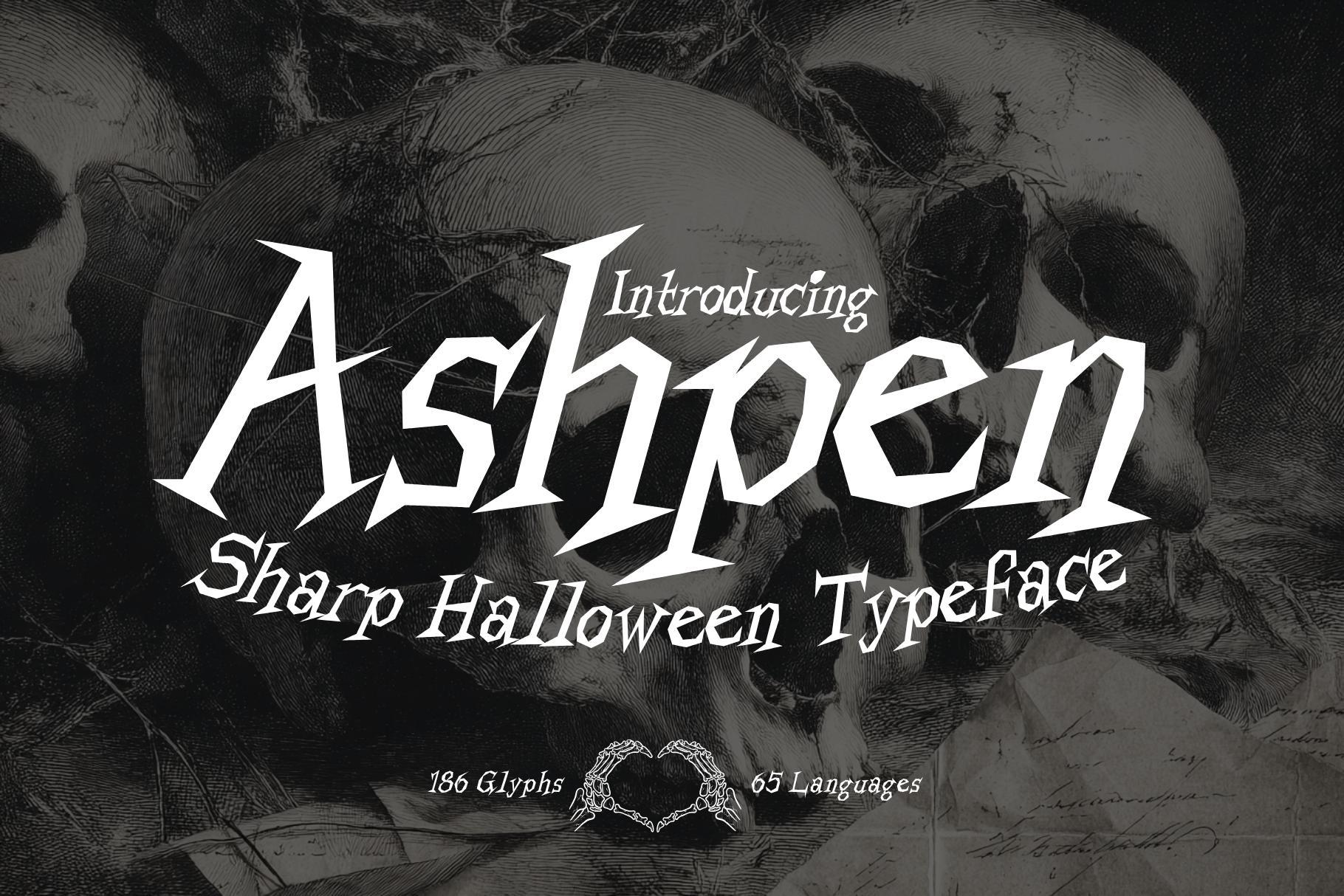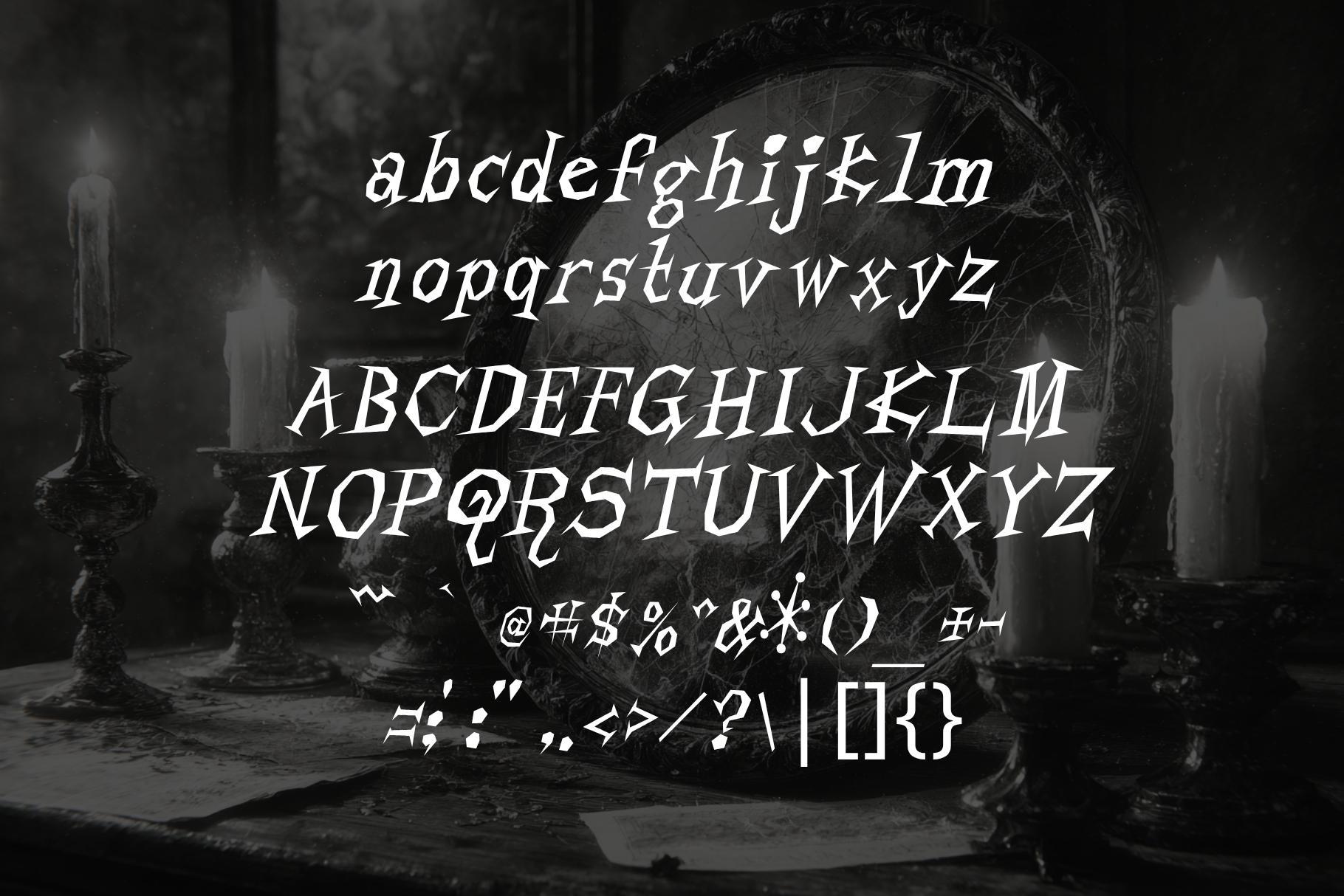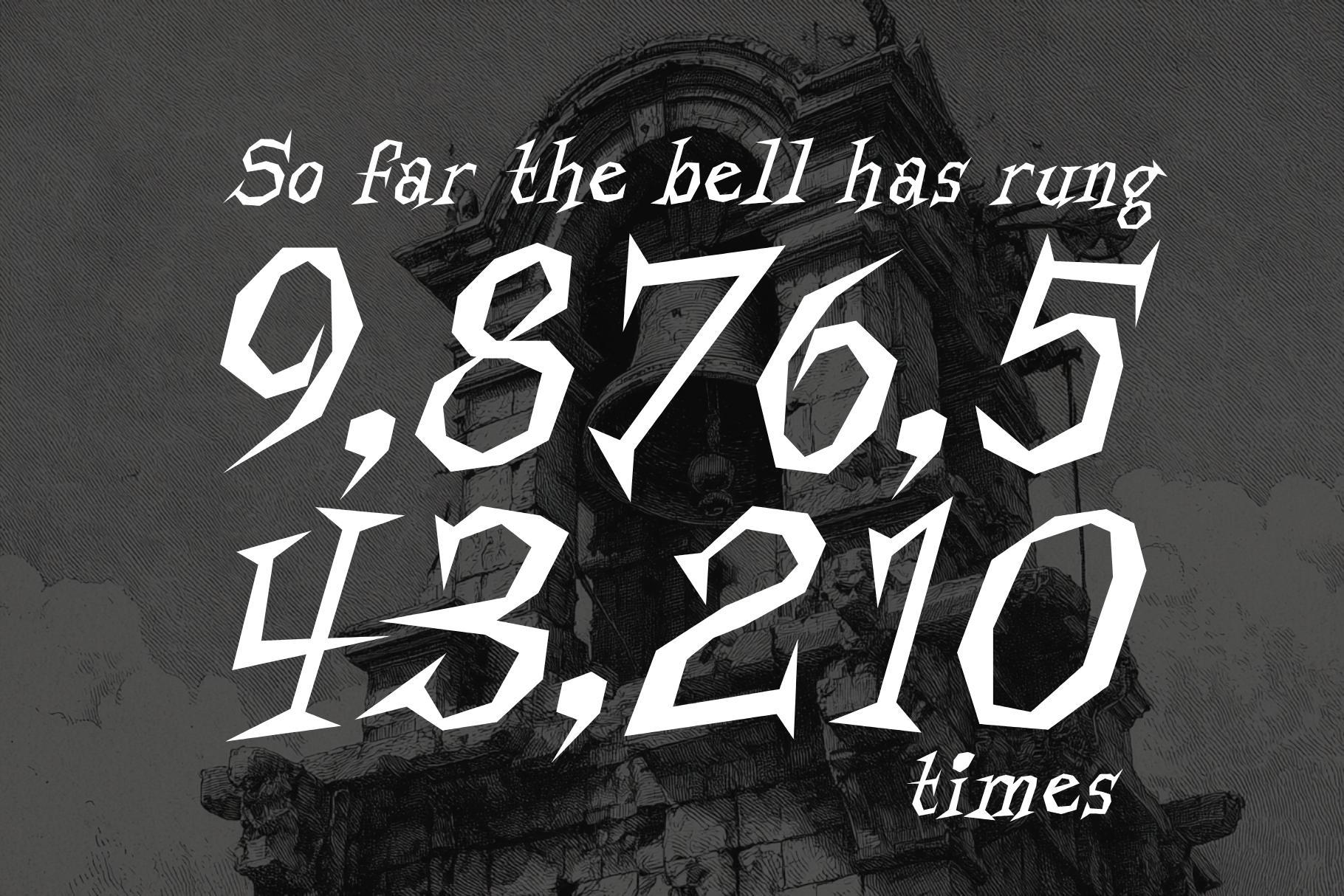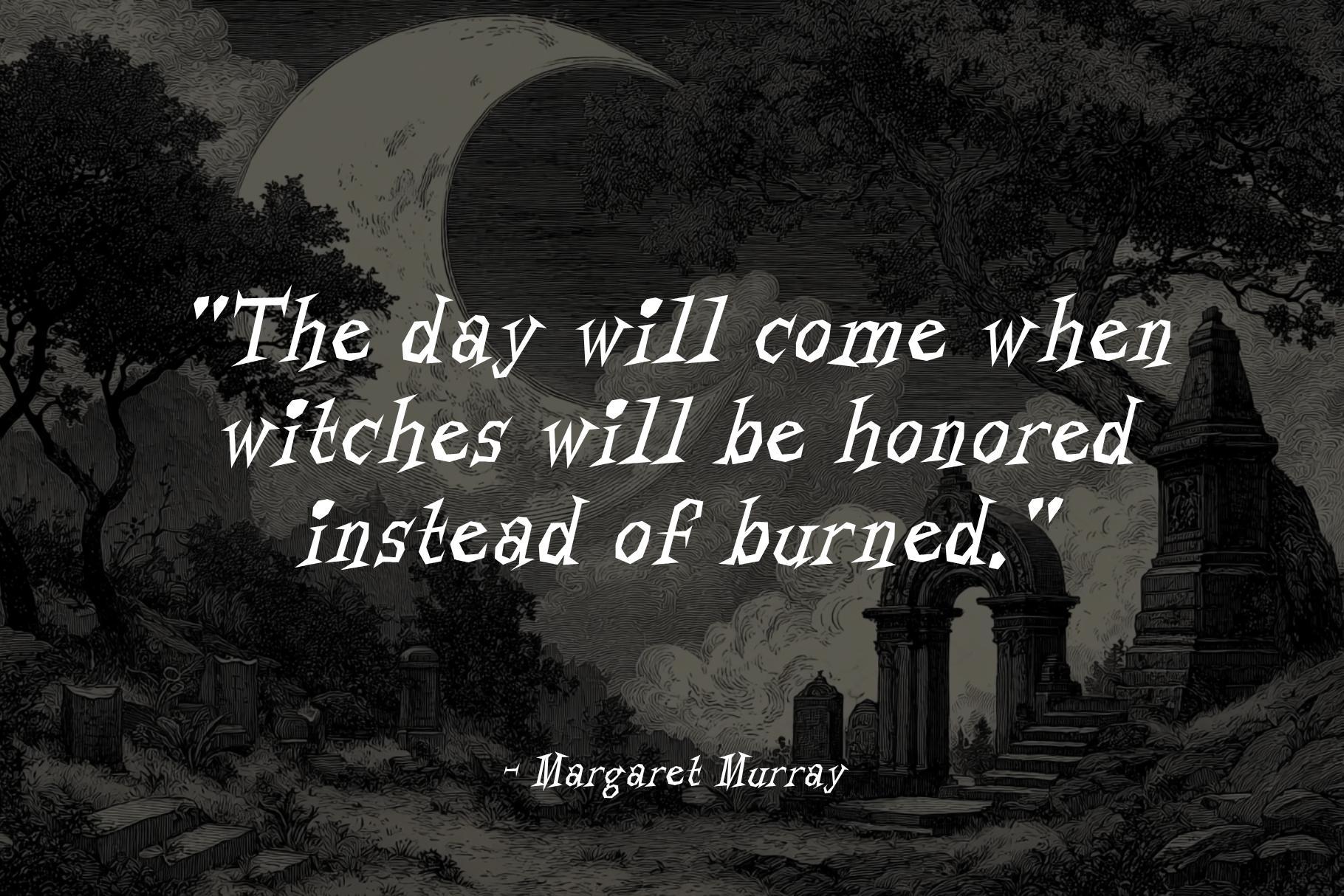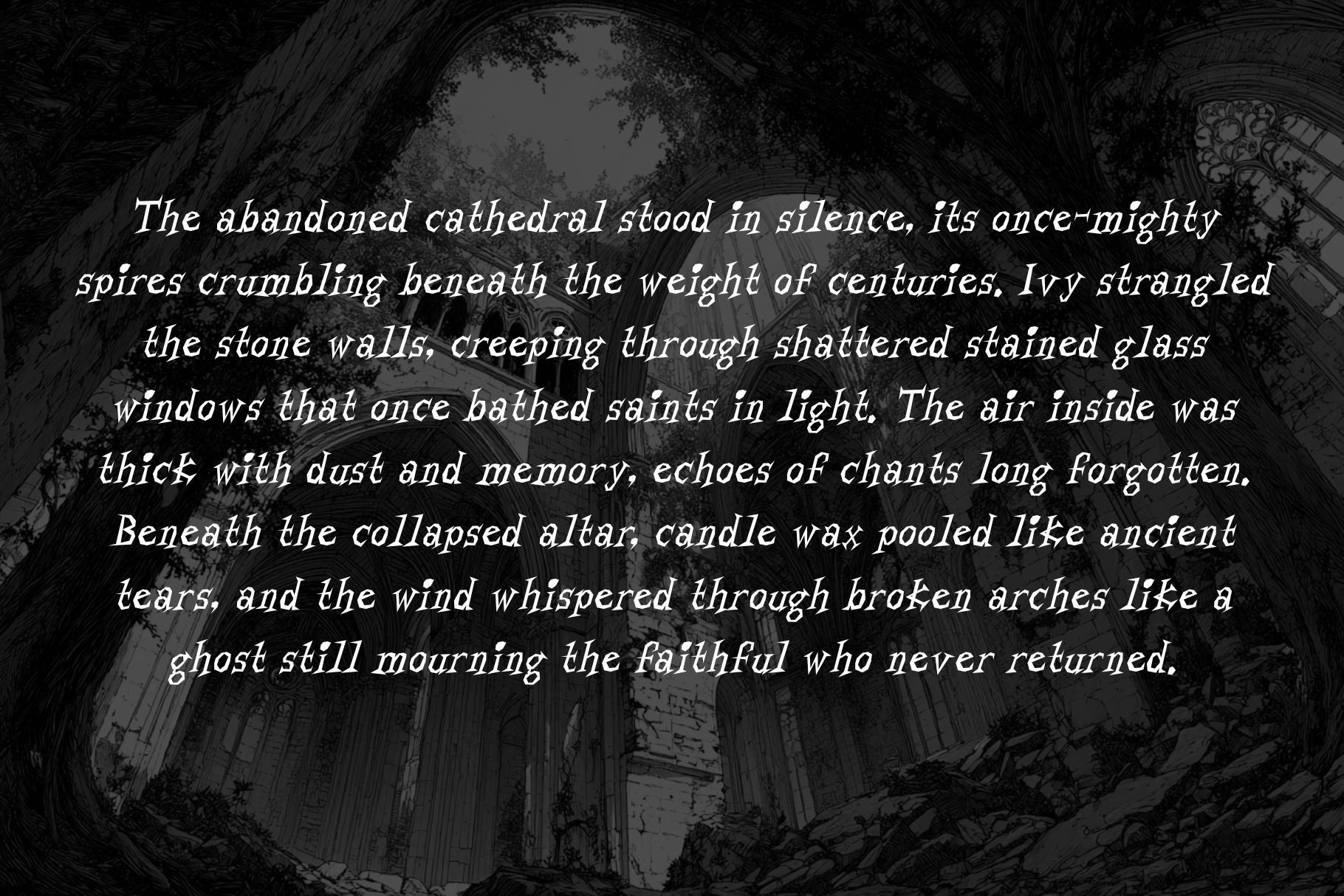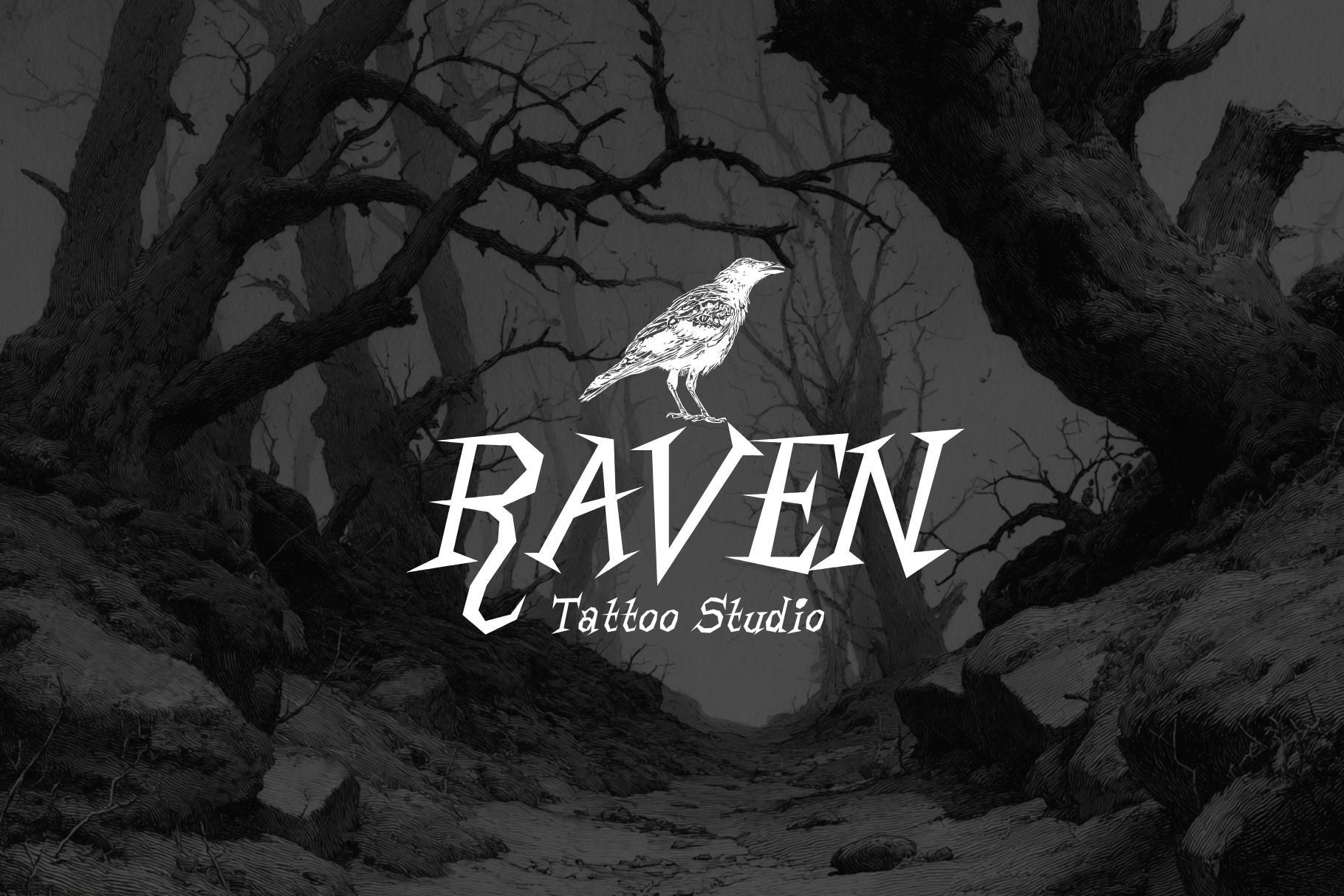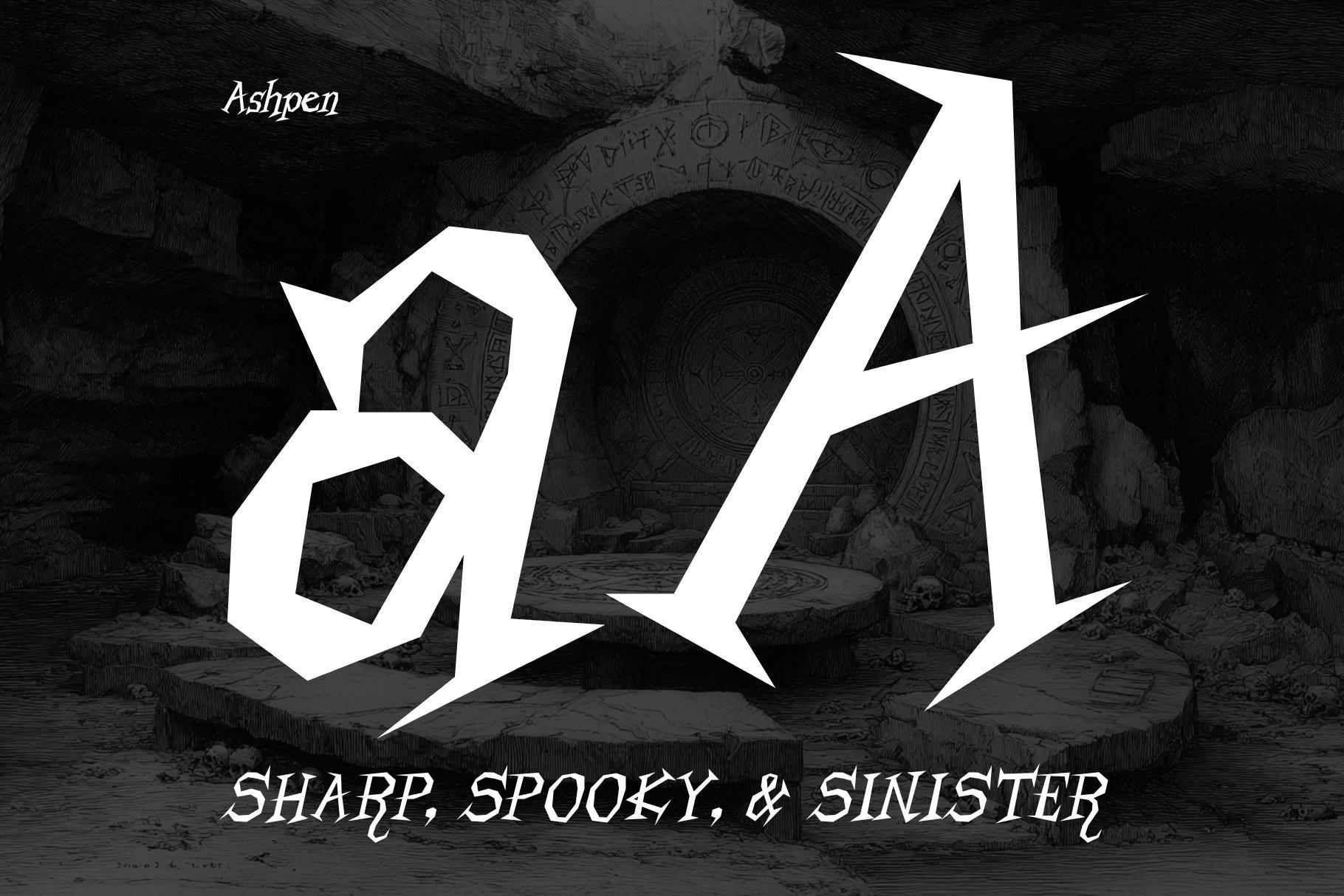
Ashpen - Sharp Halloween Serif
Ashpen is a sharp, sleek, and sinister typeface forged in the shadows of your darkest imagination. Crafted with precision and edge, this chilling font was born for fearsome creativity. Its razor-thin strokes and jagged edges evoke a haunting presence, perfect for horror movie titles, creepy Halloween invitations, eerie social media graphics, or posters that demand a second (and fearful) glance.
With186 glyphs and multilingual support for up to 65 languages, Ashpen is as versatile as it is unnerving. Whether you're designing haunted house flyers, horror book covers, or dark fashion branding, this font ensures your message slashes through the noise. It's more than a typeface, it's a scream captured in ink.